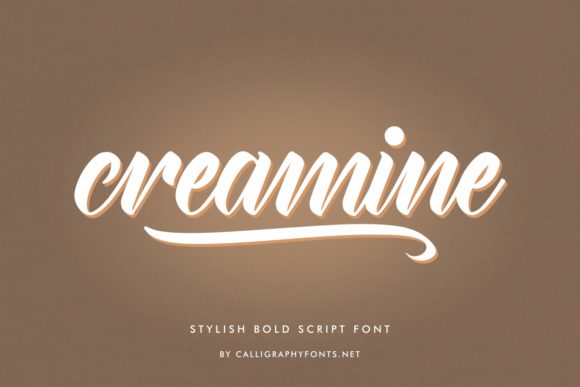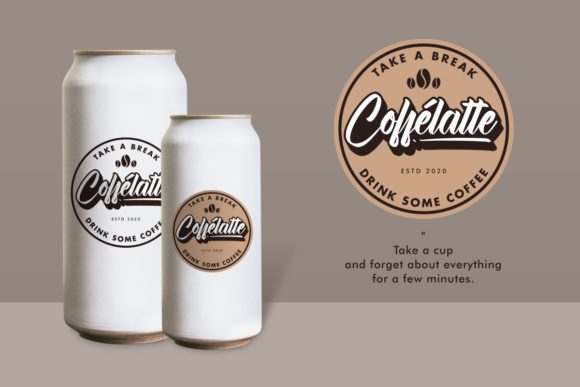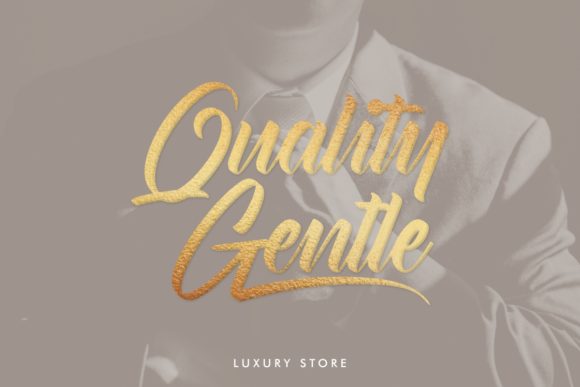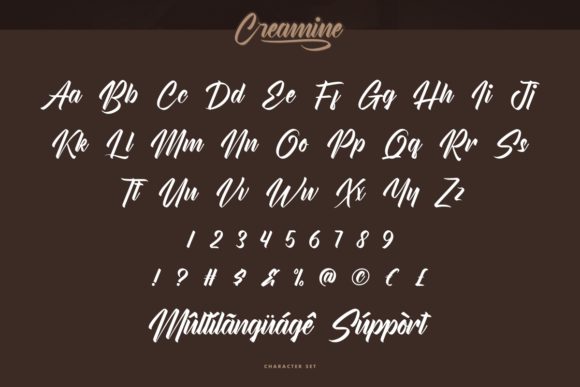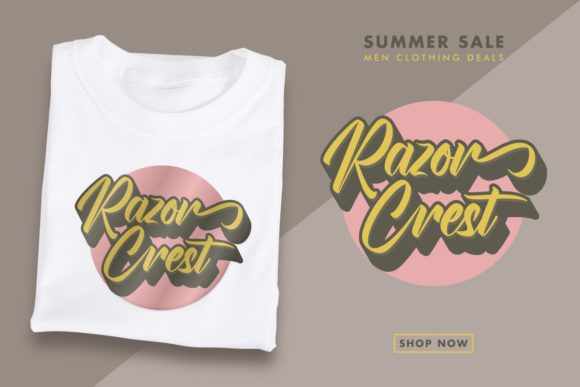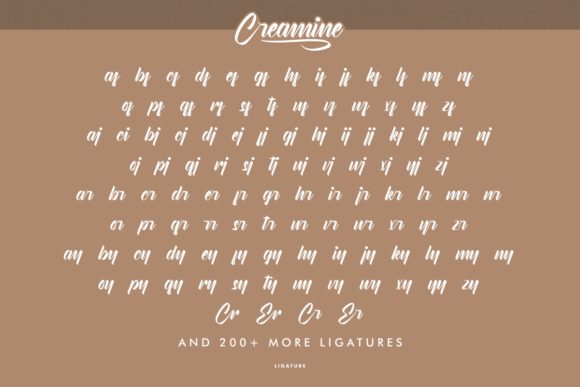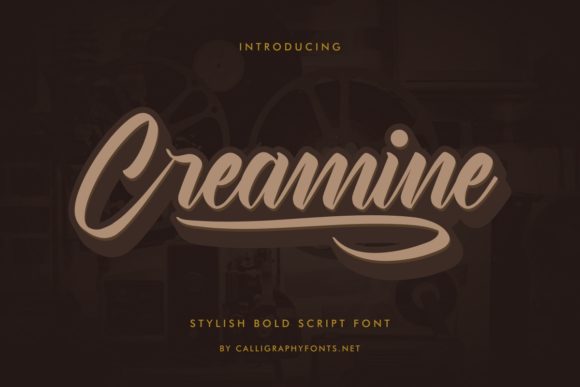
Creamine Font: Elevate Your Designs with a Stylish Handwritten Touch
In the world of design, fonts play a crucial role in conveying the message and aesthetic of a project. For crafters, designers, and creative enthusiasts, finding the perfect font can be a game-changer. If you’re on the hunt for a stylish and versatile handwritten font, look no further than Creamine. This beautiful font is not only visually stunning but also packed with features that make it easy to use and customize. In this article, we’ll dive into the world of Creamine Font, exploring its features, benefits, and uses.
What is Creamine Font?
Creamine is a stylish handwritten font that is perfect for designers and crafters looking to add a personal touch to their projects. With its elegant and flowing script, Creamine is ideal for a wide range of applications, from branding and advertising to packaging and digital media. This font is designed to help you create outstanding designs that stand out from the crowd.
Key Features of Creamine Font
• PUA Encoded: Creamine Font is PUA (Private Use Area) encoded, which means you can access all of the glyphs and swashes with ease. This encoding allows you to unlock the full potential of the font, giving you complete creative control.
• Handwritten Style: Creamine boasts a beautiful, handwritten style that adds a touch of elegance and sophistication to any design. Its flowing script and subtle imperfections make it feel like it was written by hand.
• Glyphs and Swashes: With Creamine, you’ll have access to a wide range of glyphs and swashes, allowing you to customize your text and add unique flourishes to your designs.
Benefits of Using Creamine Font
So why choose Creamine Font for your next project? Here are just a few benefits of using this versatile font:
• Unique Designs: With Creamine, you can create unique and eye-catching designs that set you apart from the competition.
• Time-Saving: The PUA encoding and extensive glyph library make it easy to find the perfect character or swash, saving you time and effort in the design process.
• Flexibility: Creamine Font is suitable for a wide range of applications, from digital media to print materials, making it a great addition to any designer’s toolkit.
Uses for Creamine Font
Creamine Font is an incredibly versatile font that can be used in a variety of contexts. Here are some ideas to get you started:
• Branding and Logo Design: Use Creamine to create a unique and memorable logo that reflects your brand’s personality.
• Social Media Graphics: Add a touch of elegance to your social media graphics with Creamine’s flowing script.
• Packaging Design: Make your product stand out on store shelves with Creamine’s stylish and eye-catching font.
• Digital Media: Use Creamine in your digital media projects, such as video titles, blog posts, and more.
In conclusion, Creamine Font is a stylish and versatile handwritten font that is perfect for designers and crafters looking to elevate their designs. With its PUA encoding, extensive glyph library, and easy-to-use design, Creamine is an excellent choice for anyone looking to add a touch of elegance and sophistication to their projects. Whether you’re working on branding, packaging, or digital media, Creamine Font is sure to help you create outstanding designs that stand out from the crowd.